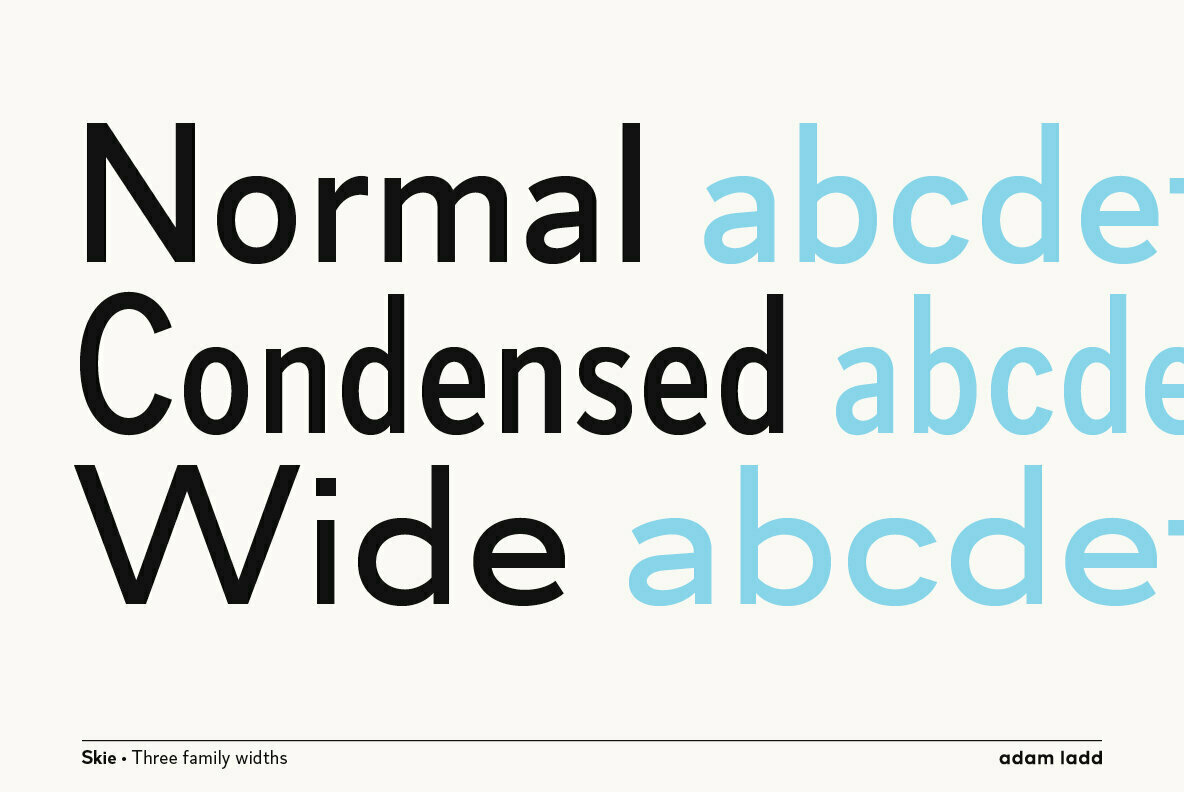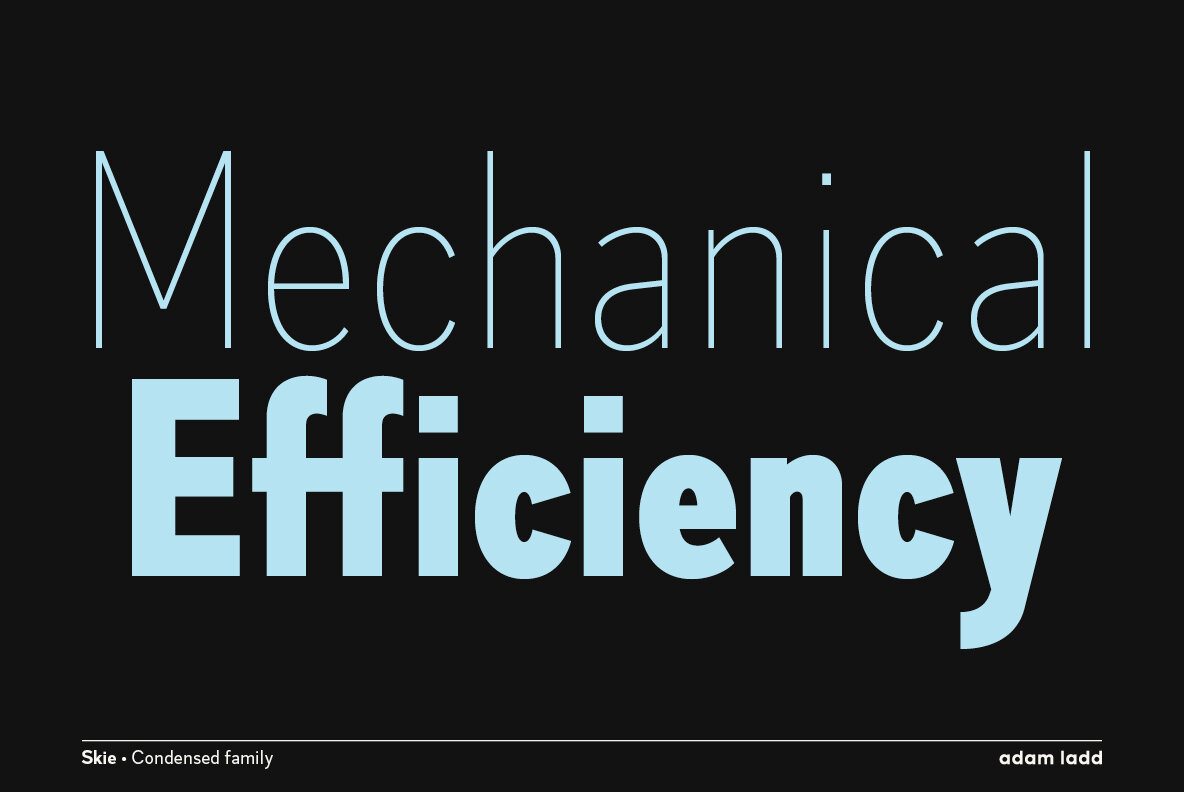
Skie Font
Skie is a simple gothic sans serif typeface with normal, condensed, and wide families. Its distinguishing characteristics are the small x-height with tall ascenders, and a minimal amount of contrast, while the apertures are semi-open to help in readability. The simple design keeps the appearance fairly neutral and presents a blend of modern and vintage qualities.